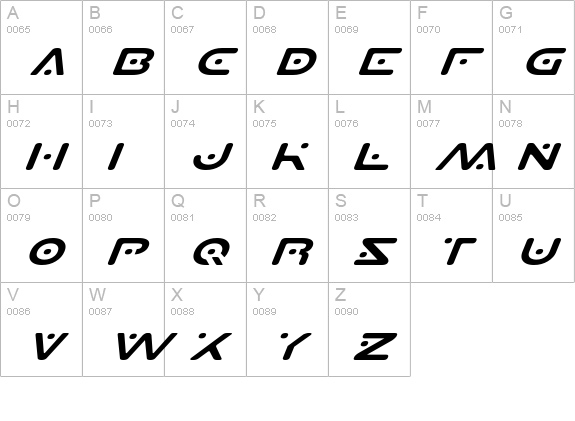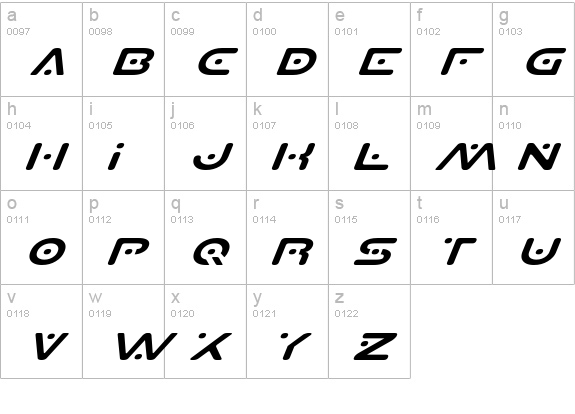
Planet S Expanded Italic Font Details
Planet S Expanded Italic is a distinctive, extended-width, italic variant in the Planet typeface family \xE2\x80\x94 well suited to design and typography projects.
Planet S Expanded Italic is a captivating and versatile font that effortlessly combines elegance and modernity. Its sleek and elongated letterforms exude a sense of sophistication, making it the perfect choice for a wide range of design projects. This font is meticulously crafted with a careful attention to detail, resulting in a typeface that is visually striking and easy on the eyes. The italicized slant adds a touch of dynamism and movement, making each letter appear as if it is gracefully dancing across the page. With its extensive character set, Planet S Expanded Italic offers a plethora of options to create unique and eye-catching designs. Whether you're working on a logo, a branding project, or even a magazine layout, this font is sure to stand out and leave a lasting impression. One of the most appealing aspects of Planet S Expanded Italic is that it is available for free. Yes, you heard that right! This incredible font can be freely downloaded from FontsMarket.com, a trusted source for high-quality fonts. This means that you can enhance your design projects with this exceptional typeface without having to spend a penny. So, why wait? Explore the boundless possibilities that Planet S Expanded Italic offers and elevate your designs to new heights. Download this captivating font today and witness the transformation it brings to your creative endeavors.